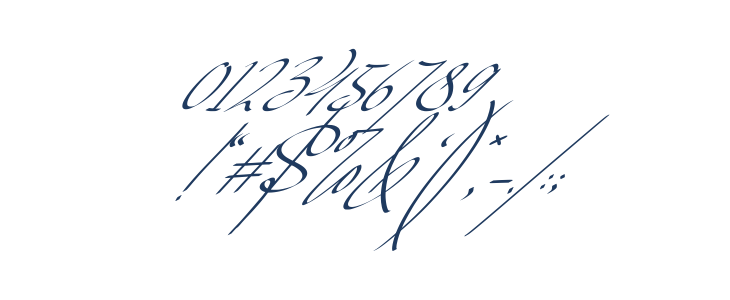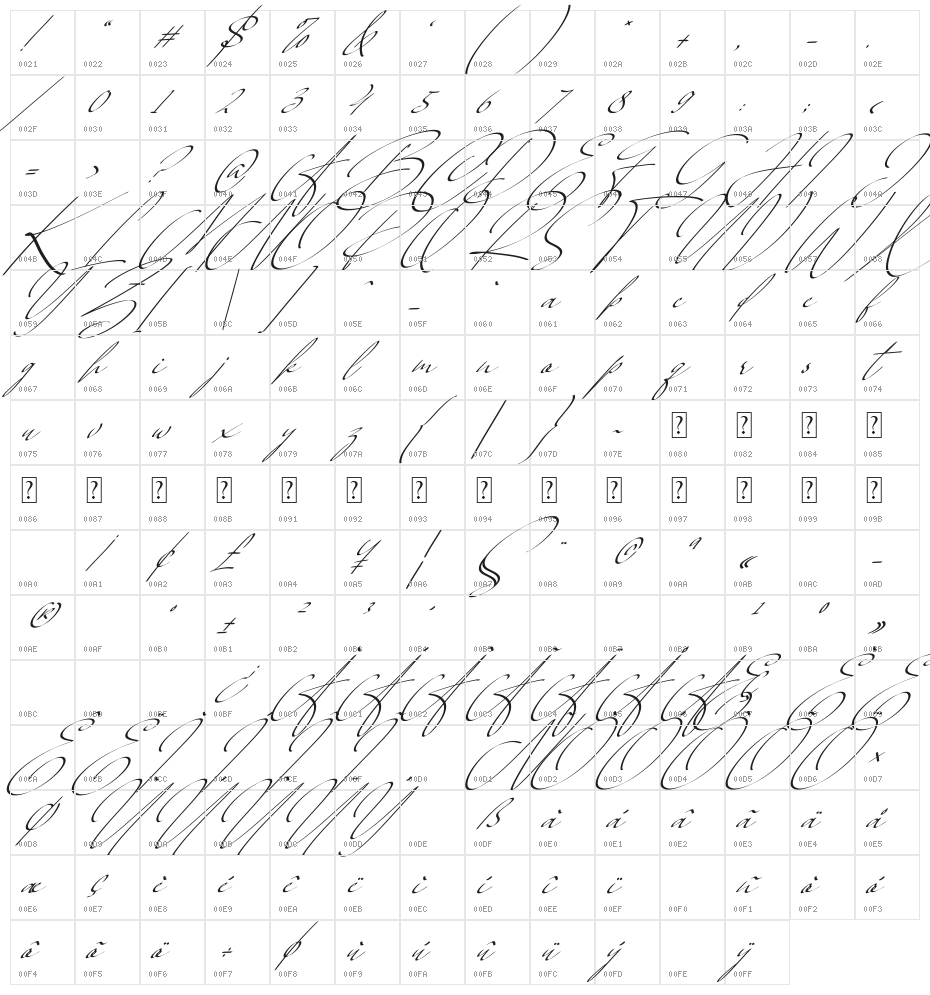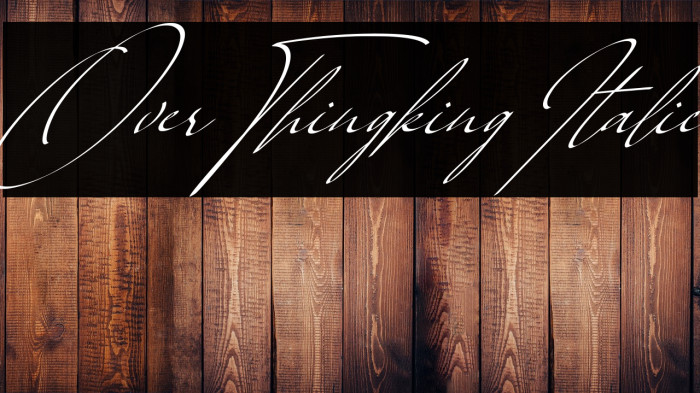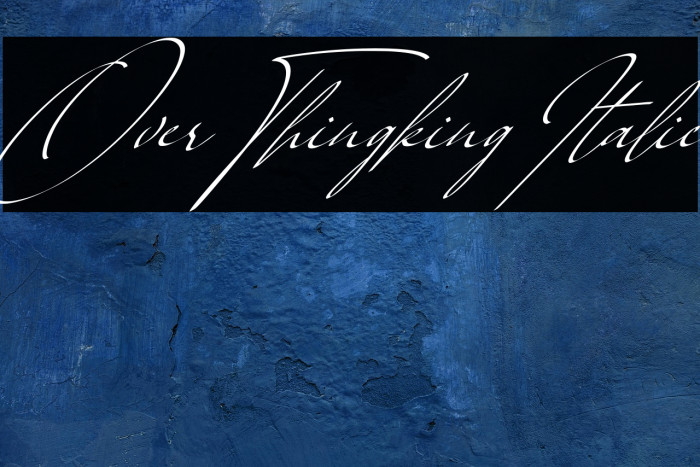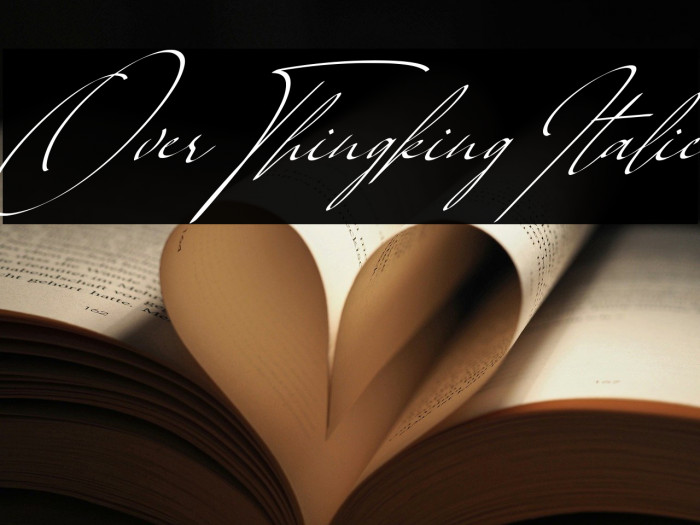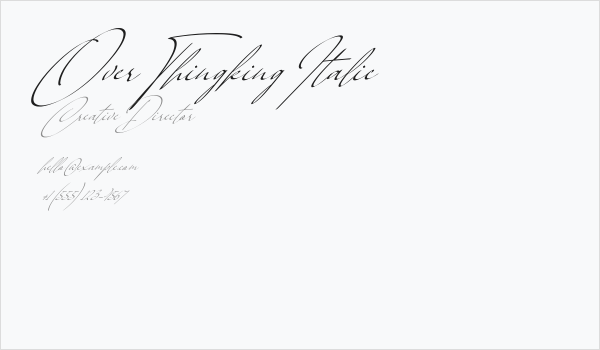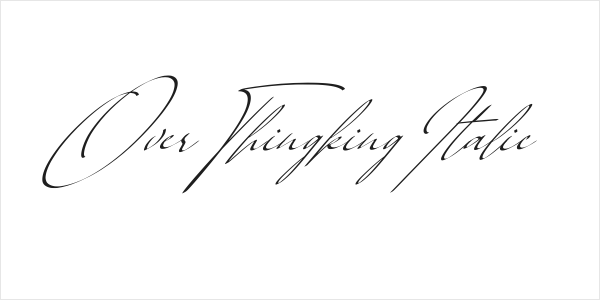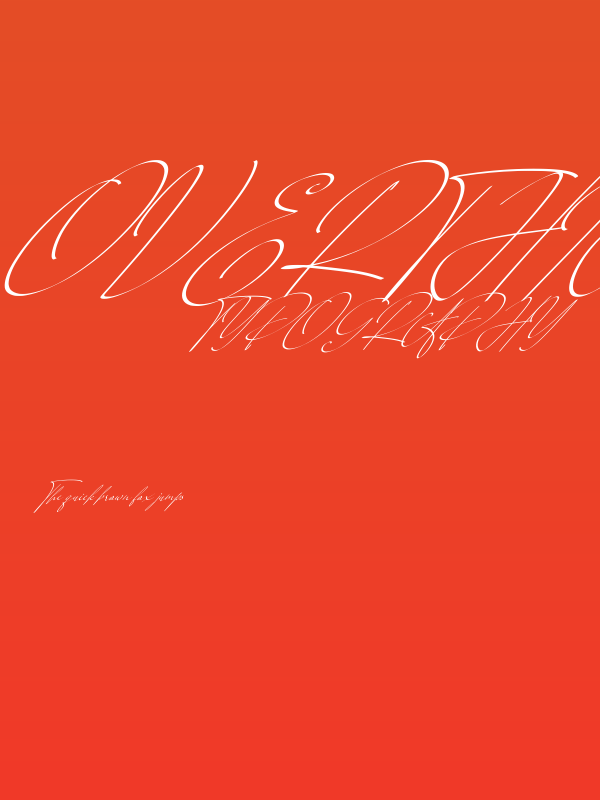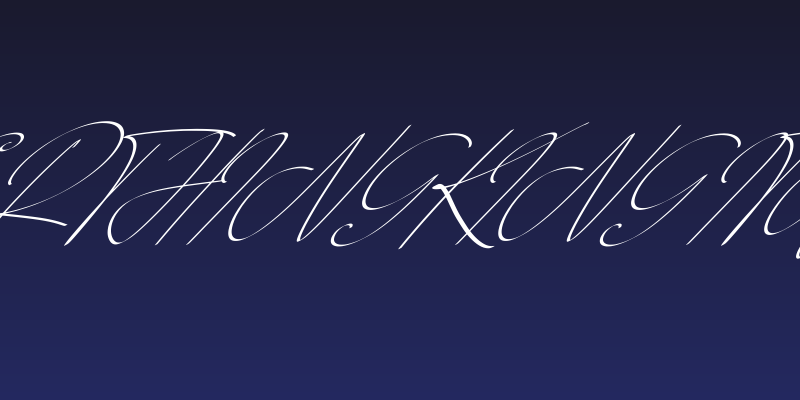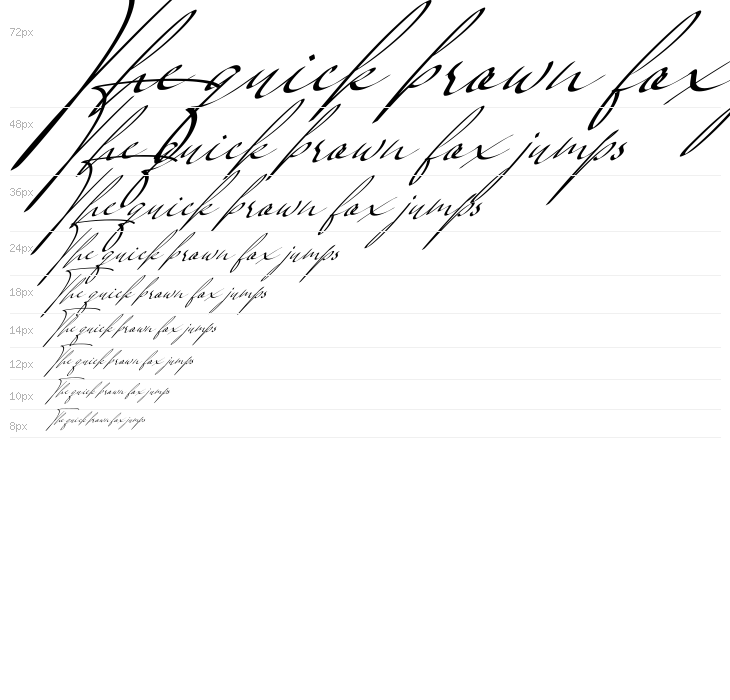
Over Thingking Italic Font
Over Thingking Italic Description
This font features an elegant and flowing script style, characterized by its smooth, cursive strokes and a natural handwritten appearance. The letters are connected, creating a seamless and fluid look that is both sophisticated and artistic. The uppercase letters are slightly larger and more ornate, while the lowercase letters maintain a consistent flow. Numbers and special characters are designed to match the overall aesthetic, with a graceful and stylish flair. The font's italic nature adds a dynamic and expressive quality, making it suitable for creative and decorative applications.
| Proposed Projects | Ideal for wedding invitations, greeting cards, branding, and elegant logo designs. |